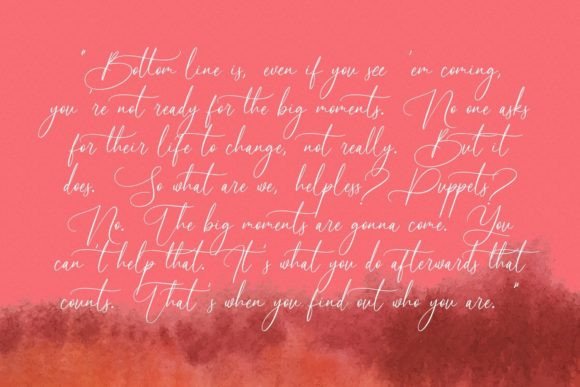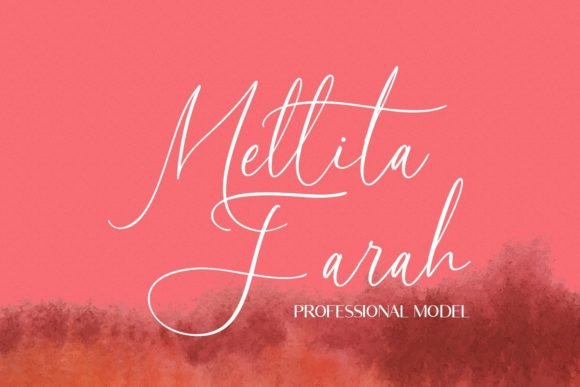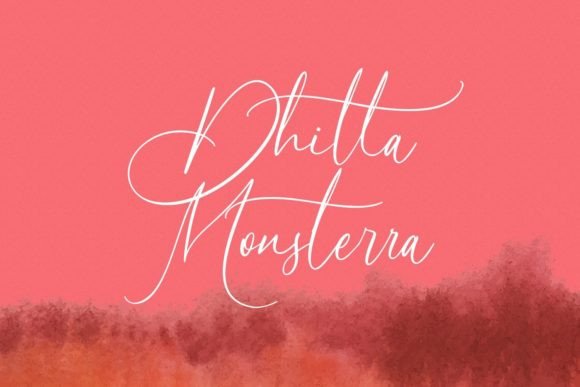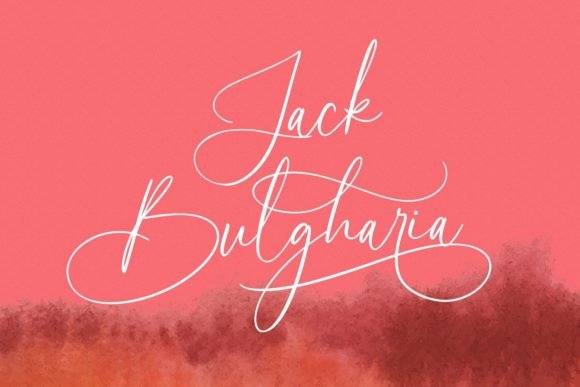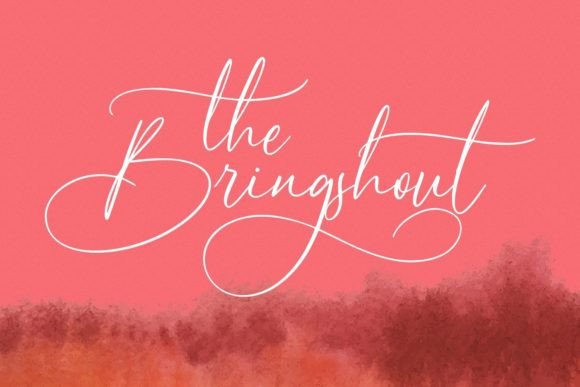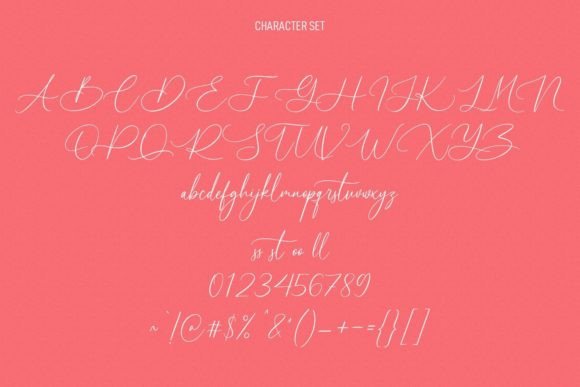
Introduction to Rowlercones Font
Rowlercones is a delicate and well-rounded handwritten font, perfect for crafty projects that need authentic typography.
Use it for wedding invitations, birthday cards, personal branding, elegant logos, and more, and your designs will stand out .
Key Features of Rowlercones Font